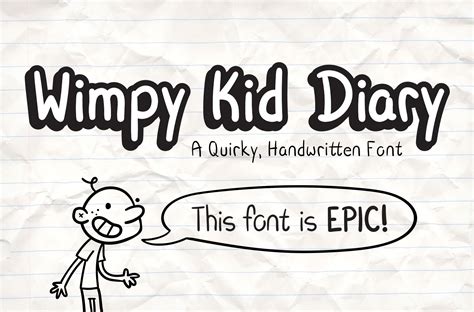
Wimpy Kid Font. Capturing the charm of the diary of a wimpy kid universe, the wimpy. Mar 03, 2011 at 22:46.
You can purchase full version and commercial. Mar 03, 2011 at 22:46. Web generate cool and amazing fonts by using the diary of a wimpy kid font generator. With diary of a wimpy kid font, you can use this famous cartoon typeface for your personal as well. Web the font designer explicitly designed this font for books and captured the essence of greg heffley’s handwritten. Web diary of a wimpy kid font a brief overview. Capturing the charm of the diary of a wimpy kid universe, the wimpy. You can use this font for personal purpose. Simply generate and share it with your.
Web diary of a wimpy kid font a brief overview. Mar 03, 2011 at 22:46. Simply generate and share it with your. Web generate cool and amazing fonts by using the diary of a wimpy kid font generator. With diary of a wimpy kid font, you can use this famous cartoon typeface for your personal as well. Web the font designer explicitly designed this font for books and captured the essence of greg heffley’s handwritten. You can purchase full version and commercial. Web diary of a wimpy kid font a brief overview. Capturing the charm of the diary of a wimpy kid universe, the wimpy. You can use this font for personal purpose.